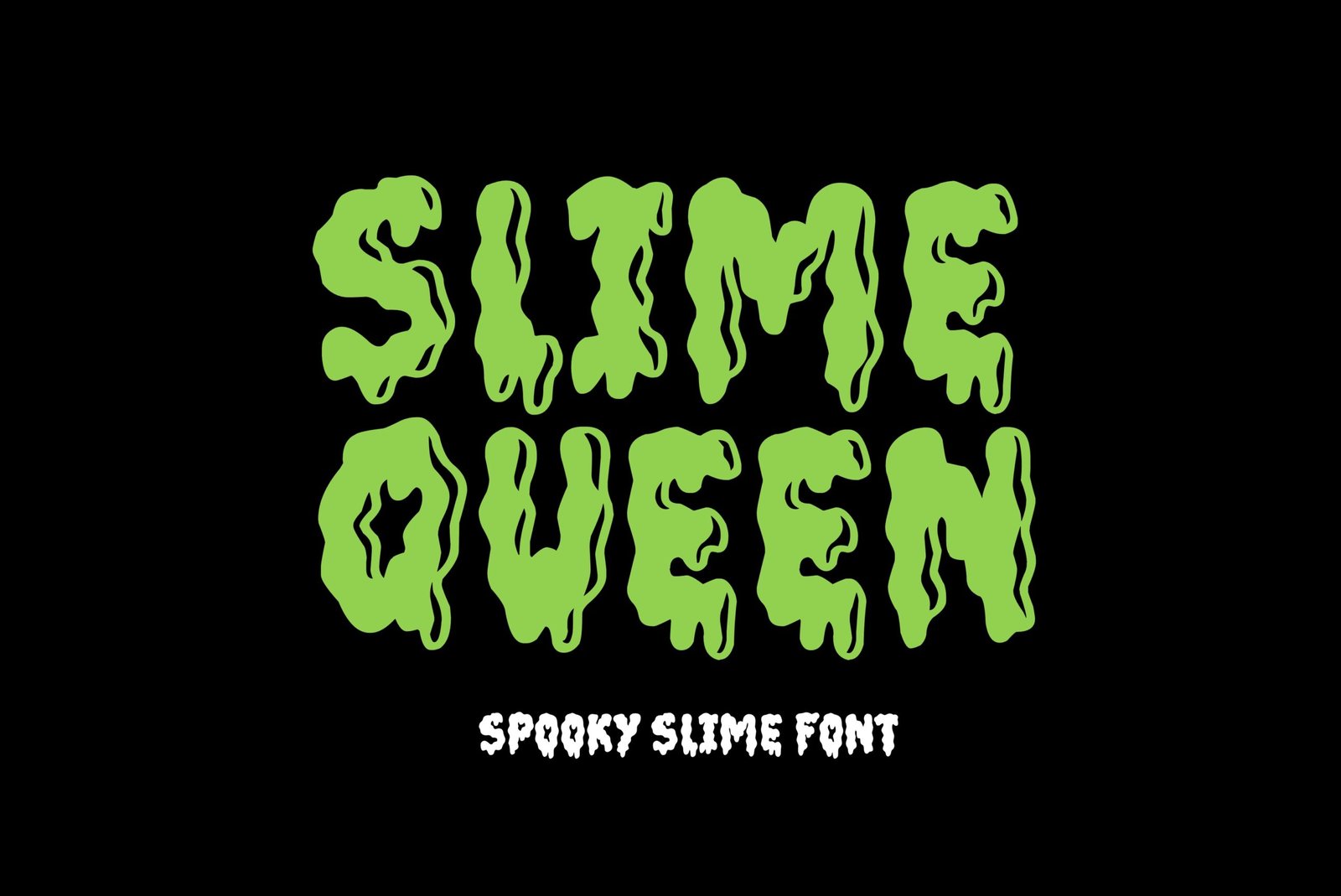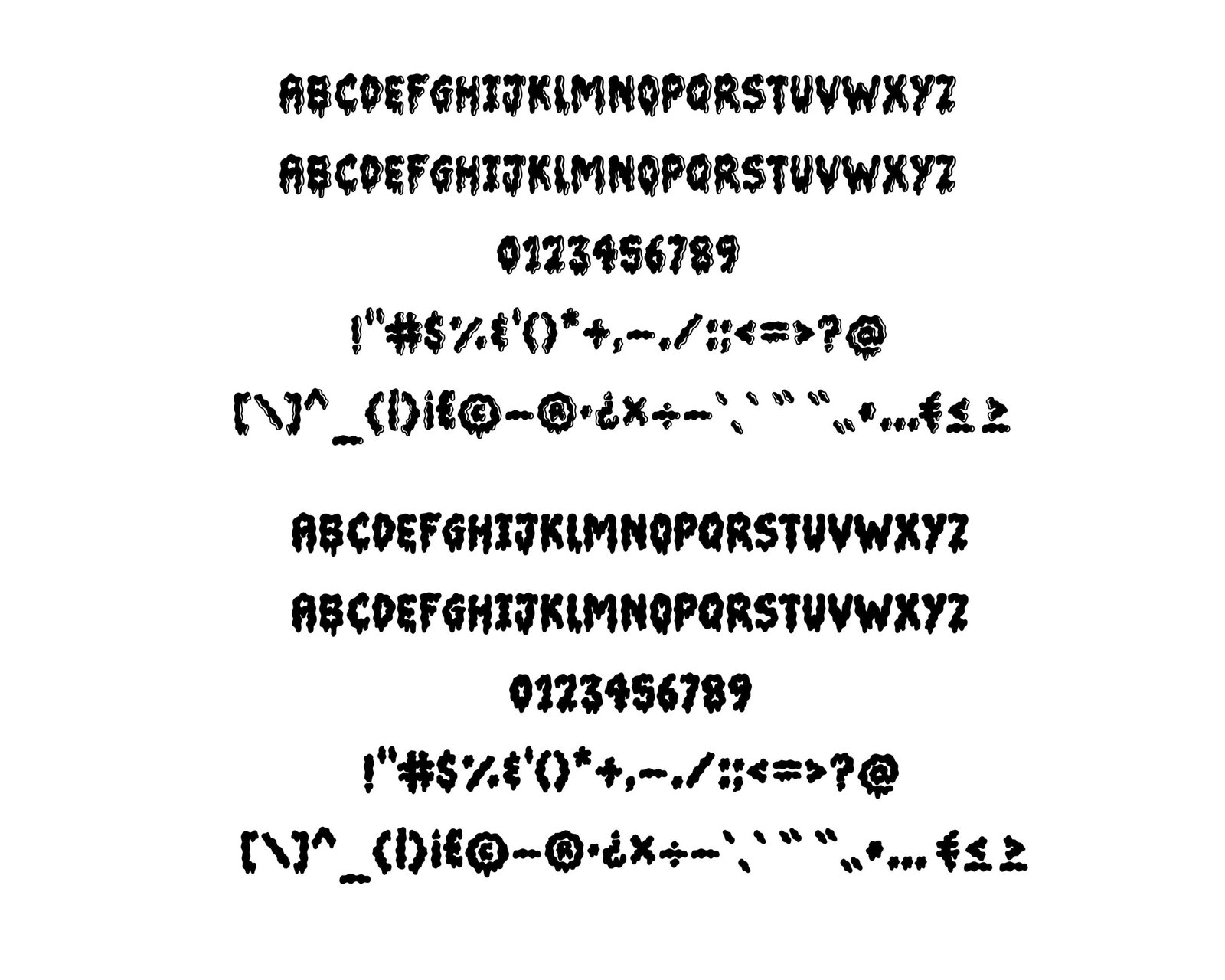
Slime Queen Font
Spooky font. “Slime Queen”. Perfect for advertising and display purposes, including banners, book covers, shirts, posters, logos and much more!
This is an ALL CAPS font, featuring numbers, characters, and punctuation. It comes in 2 styles, one with highlights and one without.